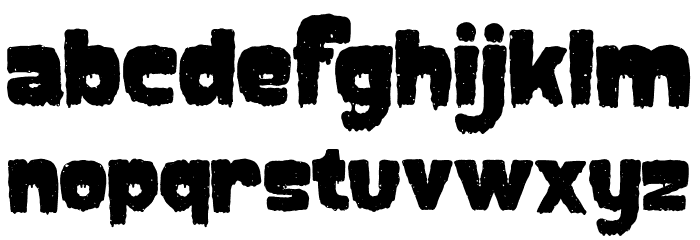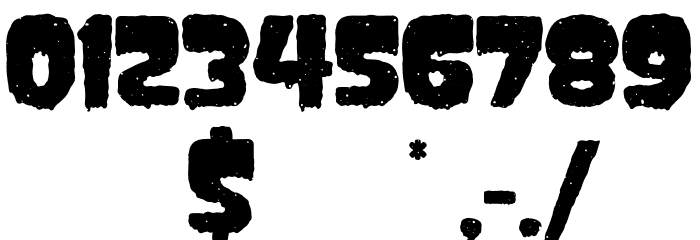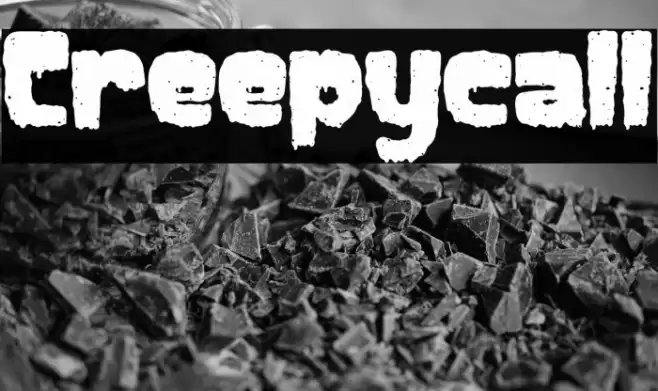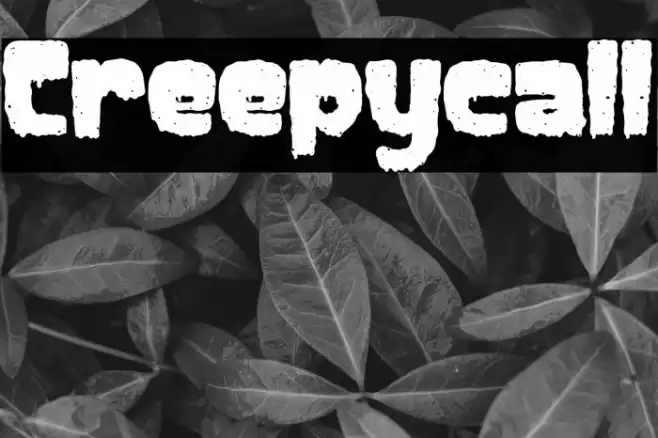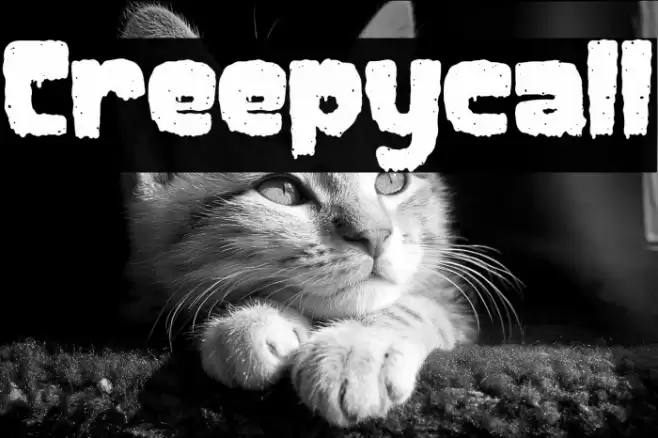
Creepycall Font
This font features a bold and rugged appearance, with each character exhibiting a distressed, textured look that gives it a worn and eerie feel. The edges are irregular, adding to its unsettling aesthetic, making it ideal for themes that require a spooky or horror vibe. The uppercase and lowercase letters maintain a consistent style, with numbers and special characters following suit. The overall design is impactful and eye-catching, suitable for projects that aim to capture attention with a dramatic flair.
A bold, distressed font with a spooky, textured appearance.
- Proposed Projects: Ideal for Halloween-themed designs, horror movie posters, spooky invitations, and eerie branding projects.